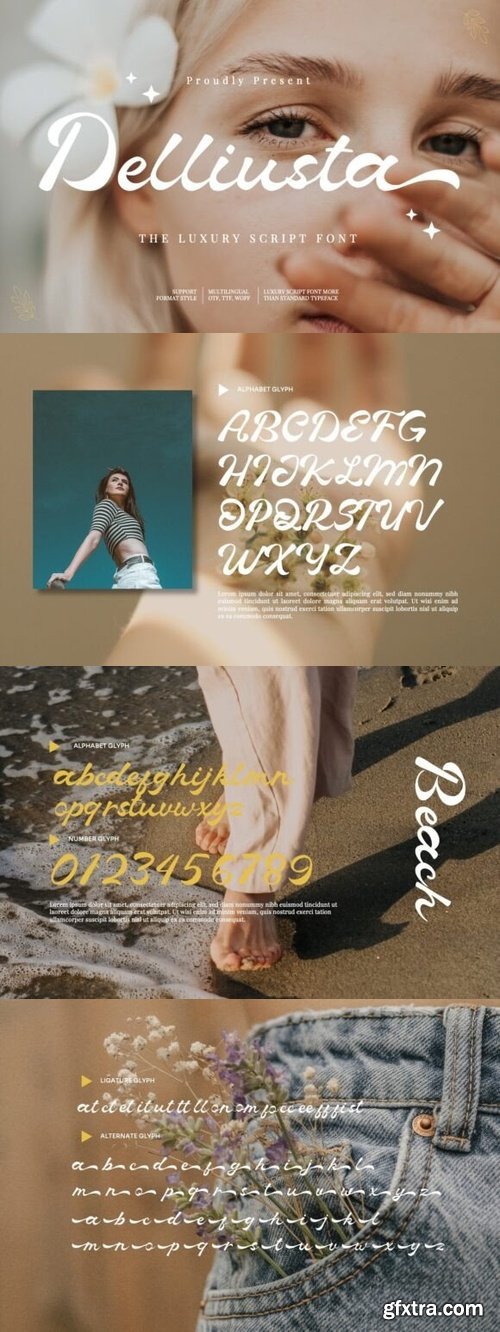
Delliusta Font
- Delliusta – Luxury Script is an elegant and stylish font with a handwritten feel. Its smooth, flowing letters give it a luxurious and sophisticated look, perfect for upscale designs, invitations, and logos.